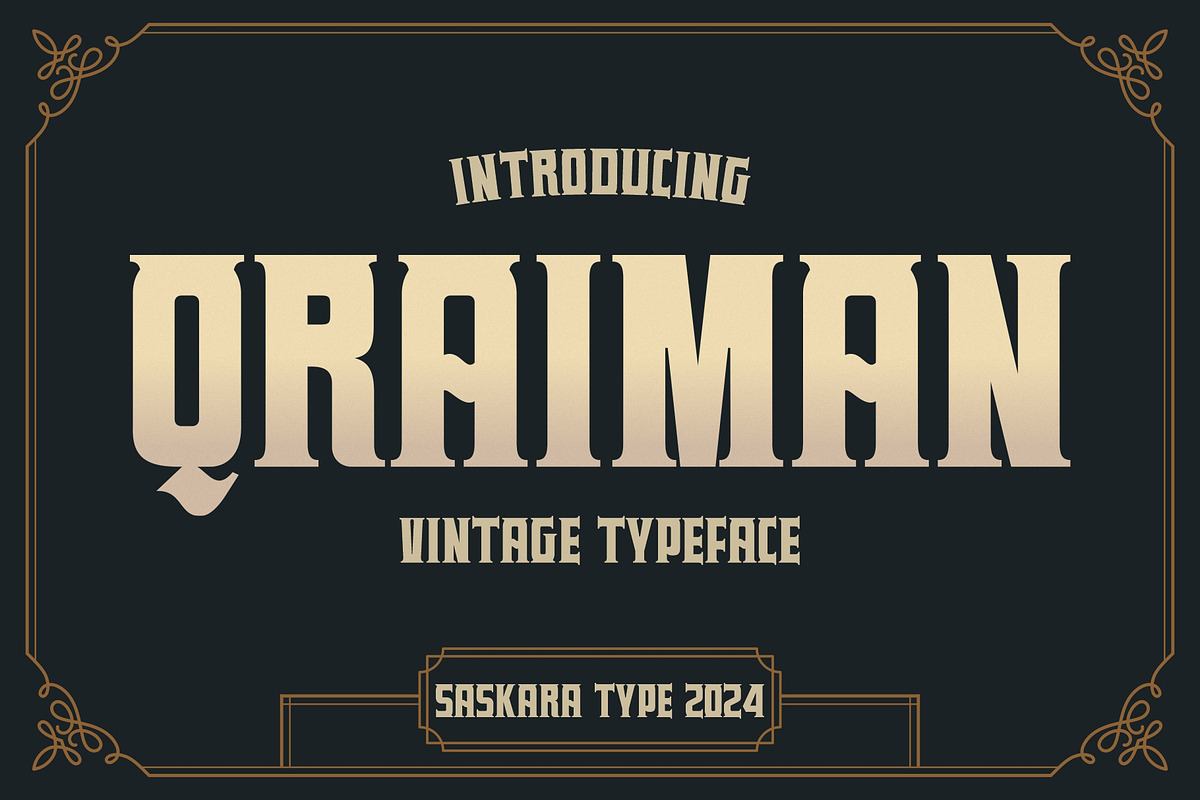
Qraiman Font Free Download is a modern and bold typeface designed to make a statement. With its sharp edges and distinctive style, this font is perfect for creating impactful designs, including logos, headlines, posters, branding, and more. Its unique structure gives your projects a dynamic and confident look that captures attention at first glance.
This font blends geometric precision with a touch of creative flair, making it ideal for a wide range of applications, from tech and entertainment to fashion and lifestyle. Whether you're designing for digital media or print, Qraiman ensures your message stands out with its bold personality.